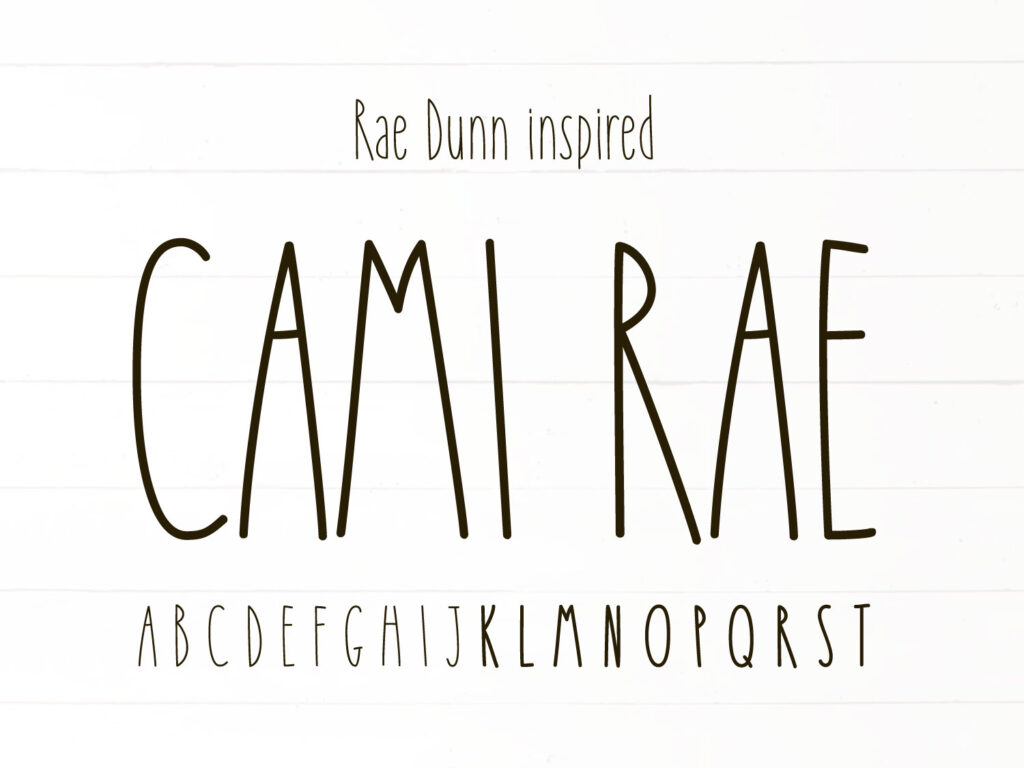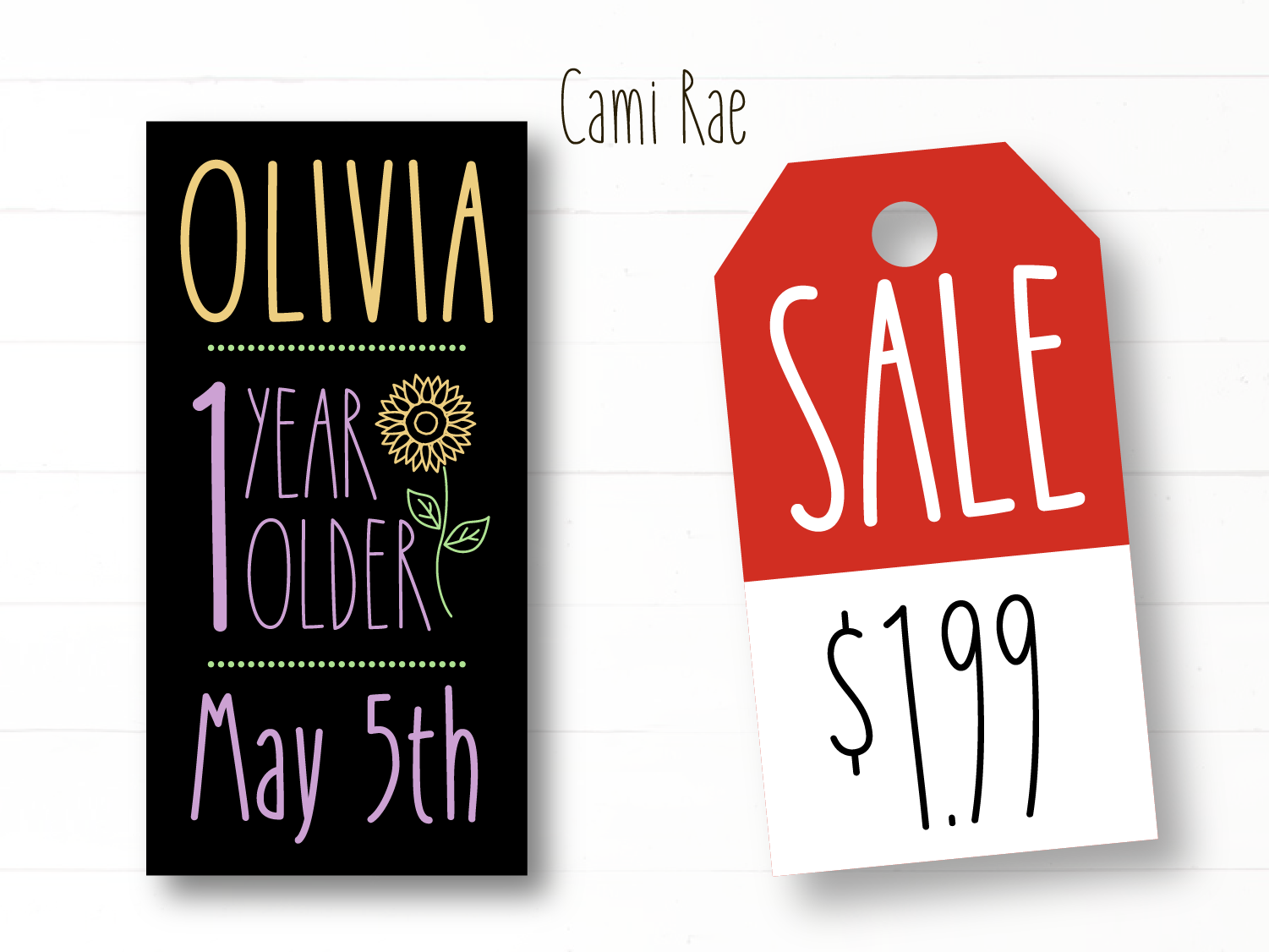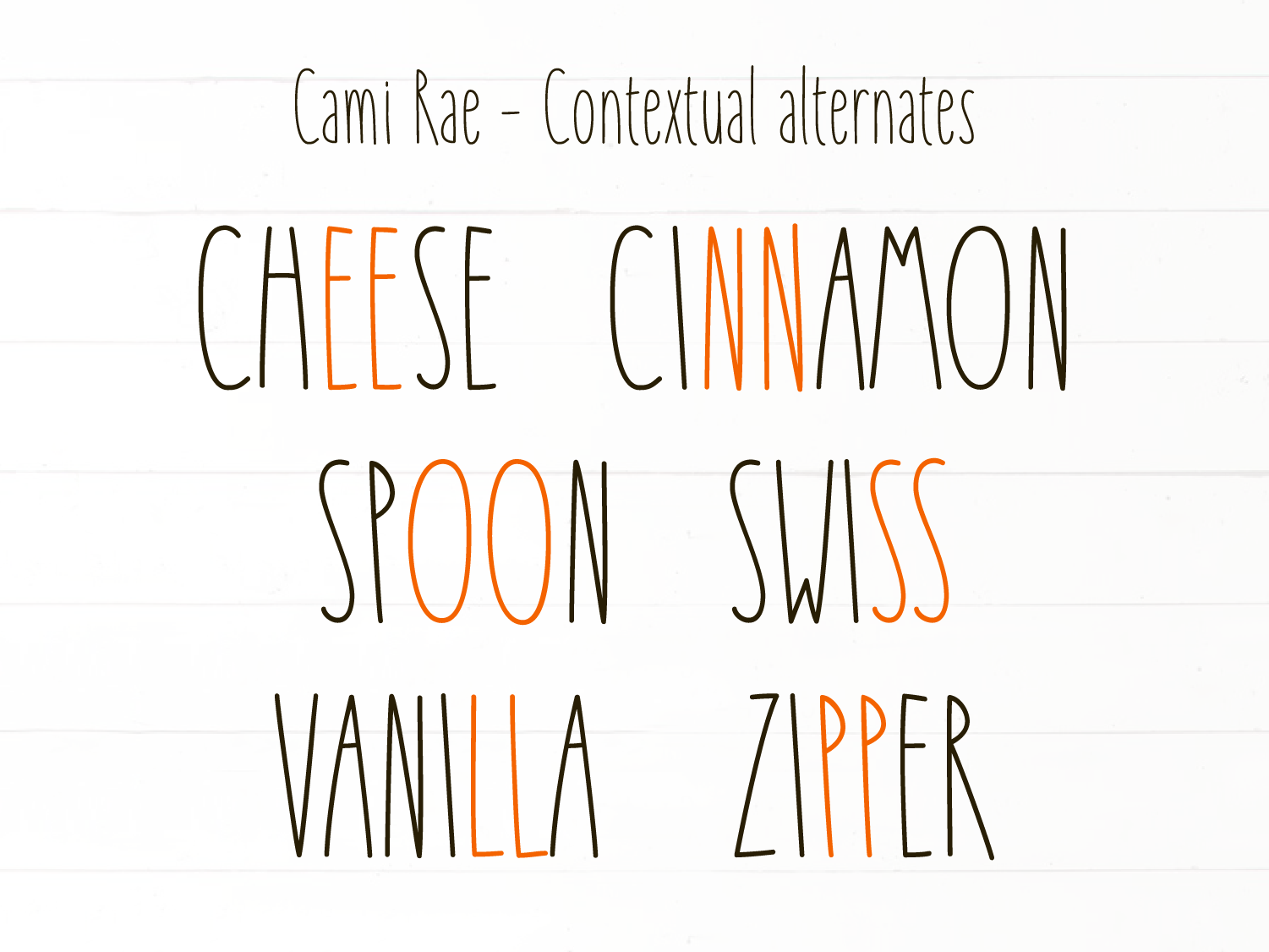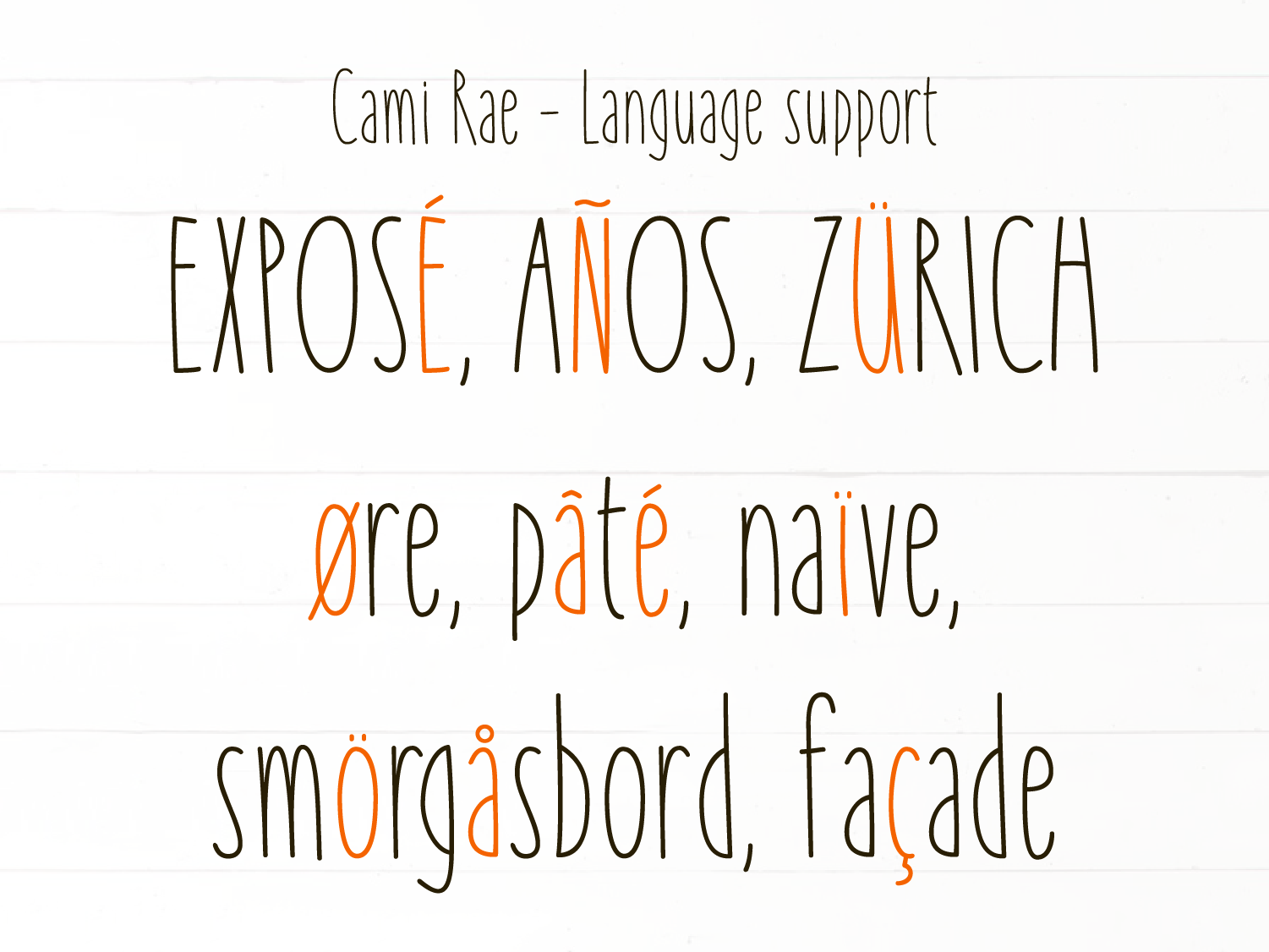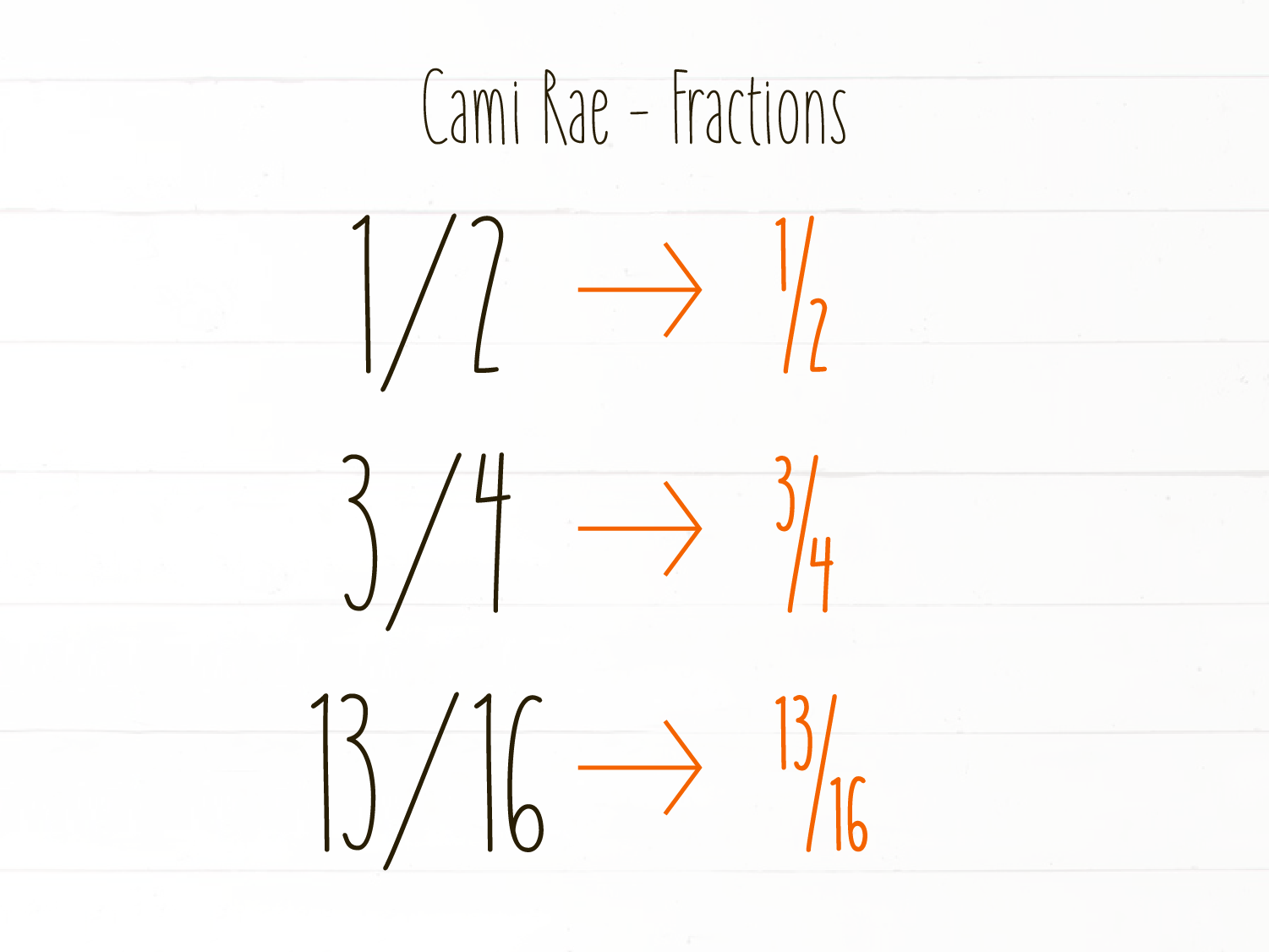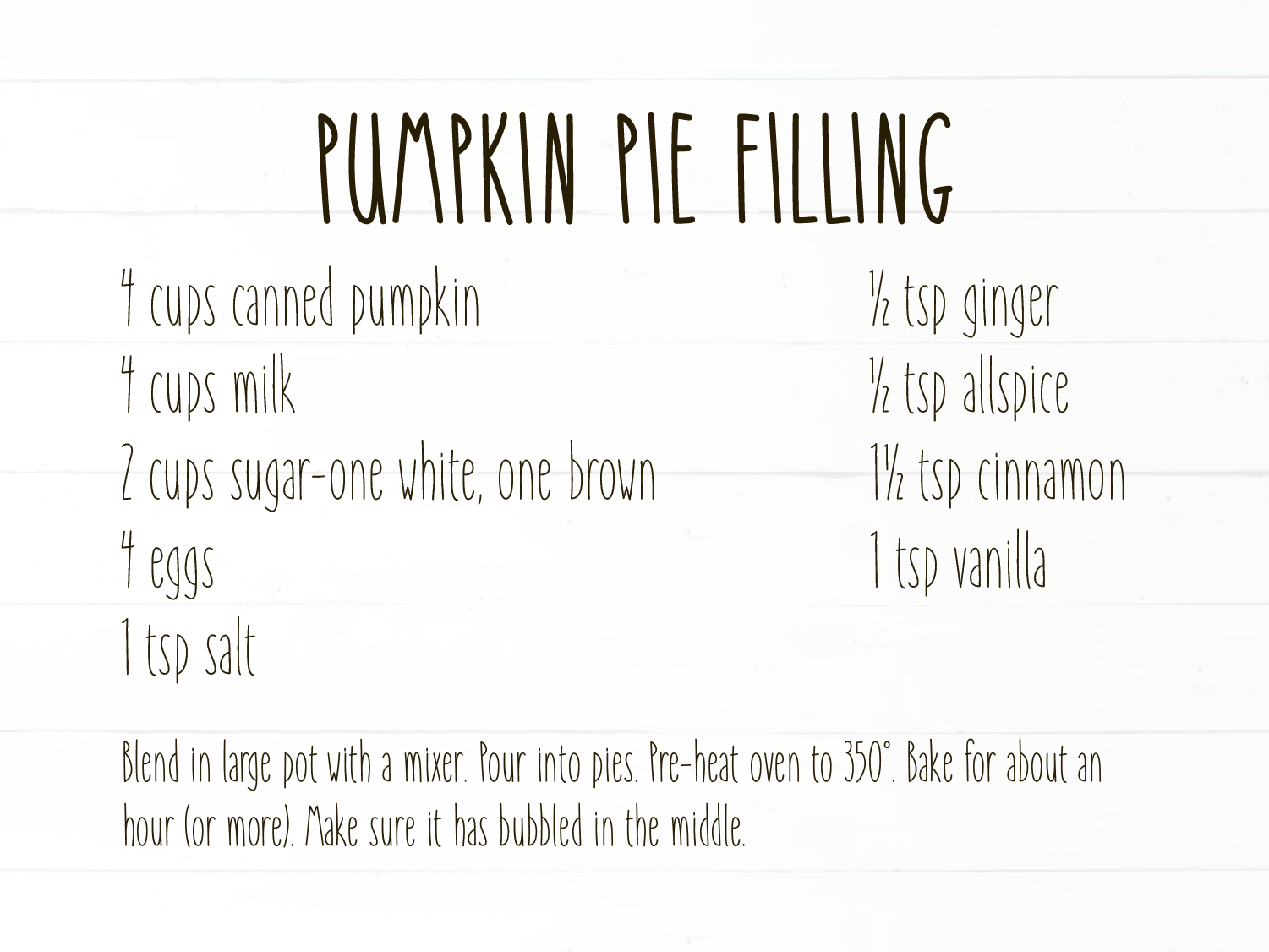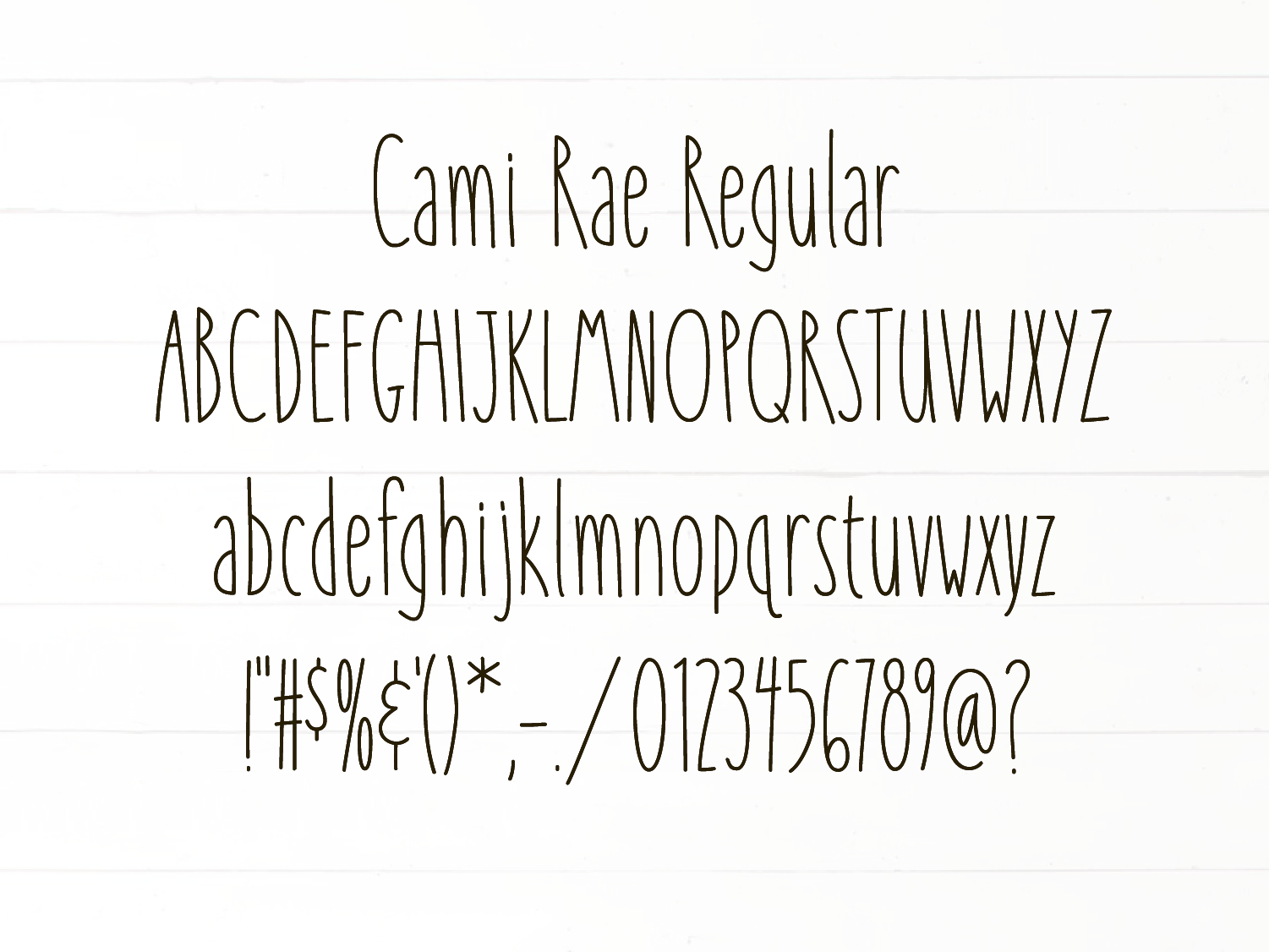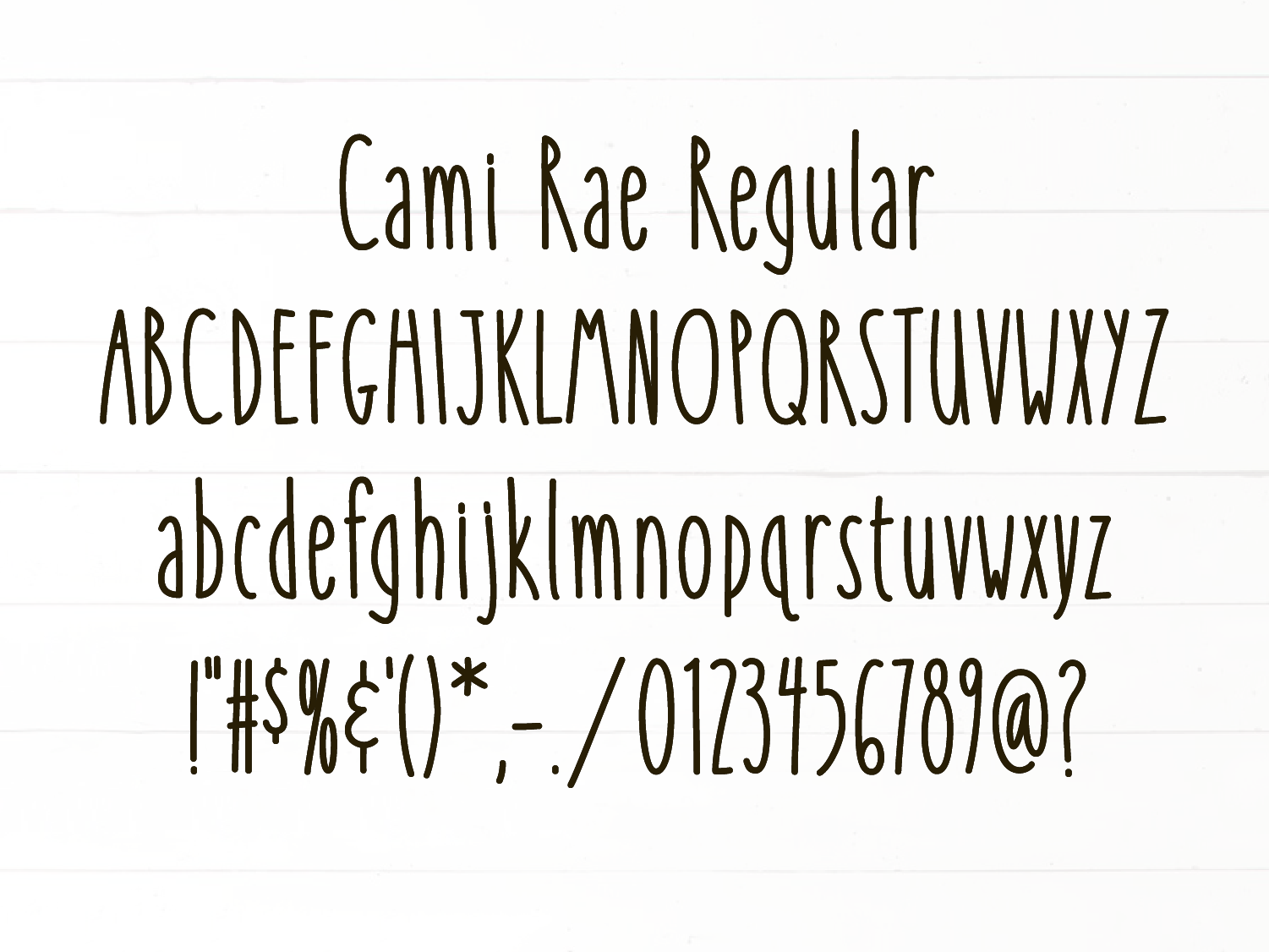
This font is fun and flexible:
– uppercase letters
– lowercase letters
– numbers
– Regular and Bold weights
– supports multiple languages
– Automatic formatting fractions (if your software supports OpenType features)
– Contextual alternates (if your software supports OpenType features)